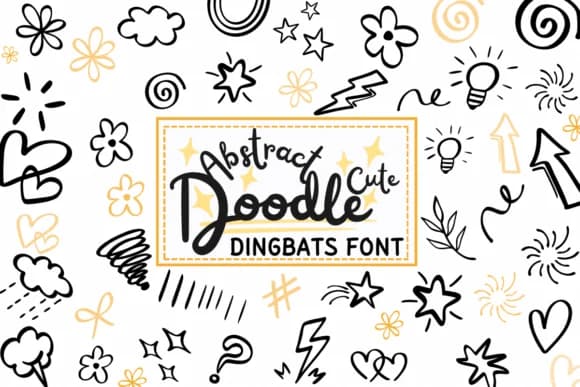
Playful and unpolished, like catching glimpses of doodles in the margins of a well-loved notebook. Abstract Doodle Cute, from designer PraewDesigns, is a dingbats collection filled with hand-drawn flourishes, geometric icons, stars, hearts, and scattered swirls that feel authentically sketchy and casual without losing polish. The versatile set works beautifully for scrapbook layouts and memory spreads, Valentine's Day card suites, decorative journaling pages, and gift tag embellishments where you need genuine character without trying too hard. Each doodle feels intentional rather than random, giving your designs that handcrafted spirit.
This font brings substance to DIY stationery labels, illustrated planner inserts, handmade wedding invitation details, and social media graphics that benefit from a personal, made-by-hand vibe. The sketched quality keeps designs feeling warm and approachable even when applied to branding work or product packaging for indie makers and small creative businesses. You get the visual texture that says "handcrafted" without losing legibility when you use these elements as decorative accents or focal points in your layout. The collection balances playfulness with restraint.
Pair Abstract Doodle Cute with a clean, neutral sans-serif for body text, which lets the doodles do the visual heavy lifting and anchors the overall composition. Find it on Creative Fabrica and start adding that handcrafted character to your projects.
Abstract Doodle Cute Font is a versatile dingbats font that works for both headings and body text. Pair it with a contrasting sans-serif or serif font to add visual interest and a clear distinction between titles and body copy.
Abstract Doodle Cute Font